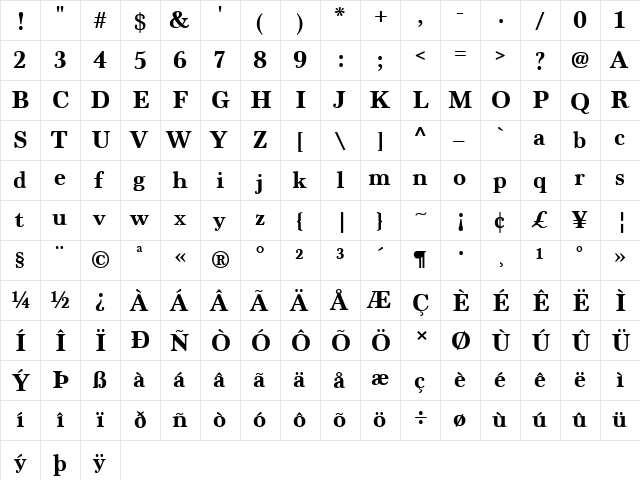
Marion Bold
Design Context for Marion Typeface
Marion offers clean, dependable letterforms without strong stylistic allegiance, making it a practical choice for designers who need flexibility. Its bold stroke weight gives it real presence on the page.